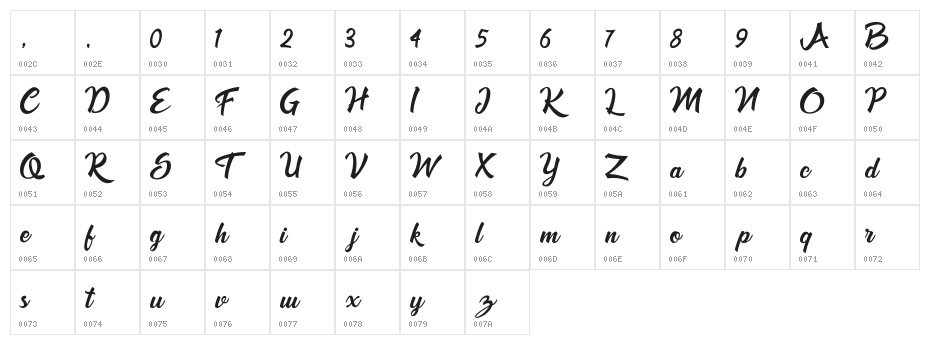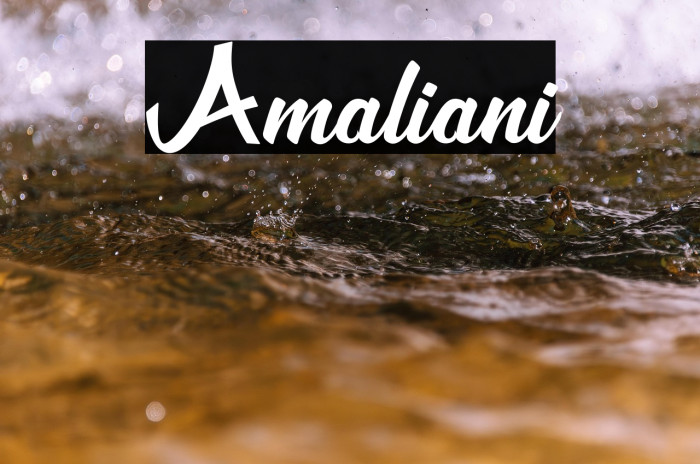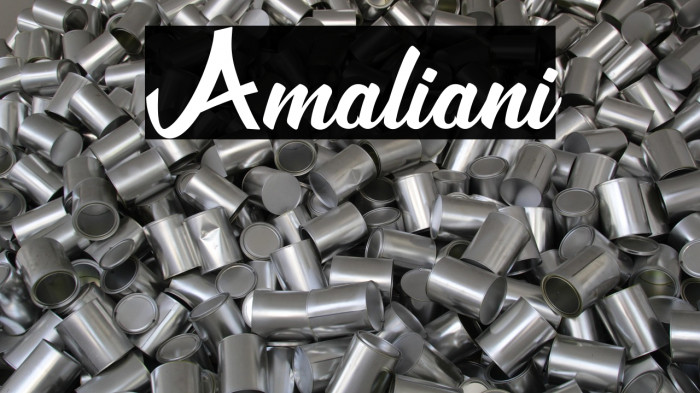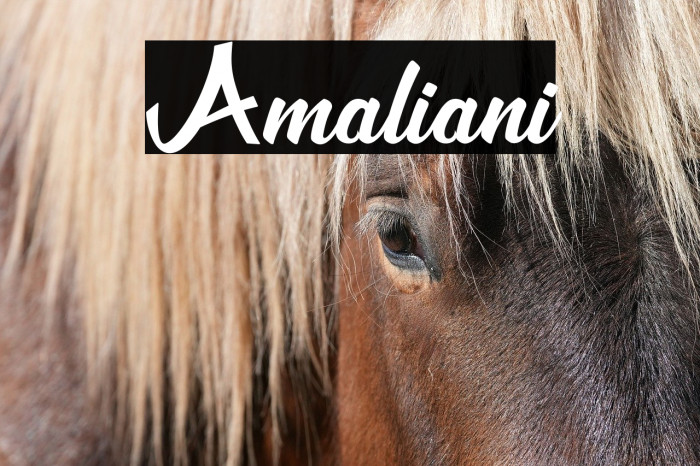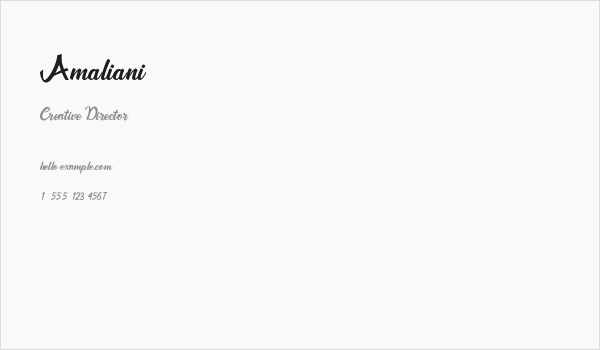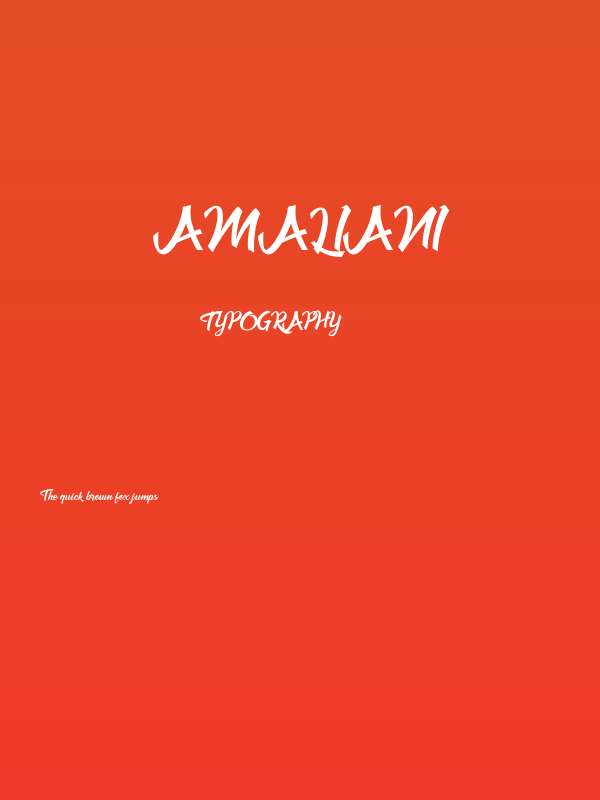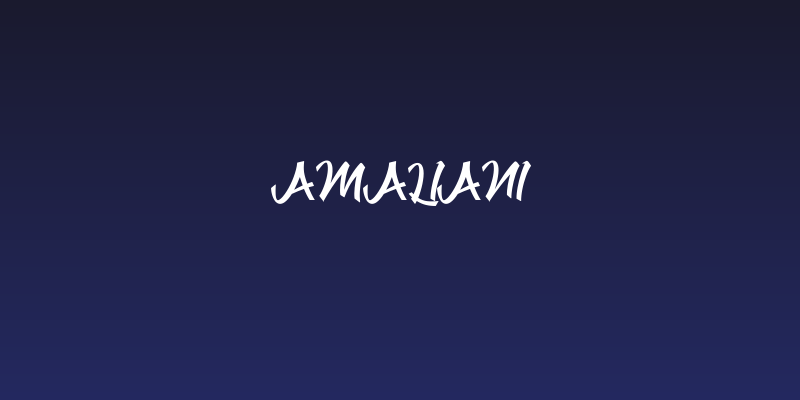
Amaliani Font
Amaliani Description
This font features a dynamic and flowing script style, characterized by its elegant and cursive letterforms. The uppercase letters exhibit a bold and sweeping motion, while the lowercase letters maintain a consistent fluidity, enhancing readability. The numbers are designed with a similar flair, ensuring a cohesive look across all characters. The special characters are crafted to match the overall aesthetic, making this font suitable for creative and expressive projects. Its design is both sophisticated and approachable, perfect for adding a touch of elegance to any text.